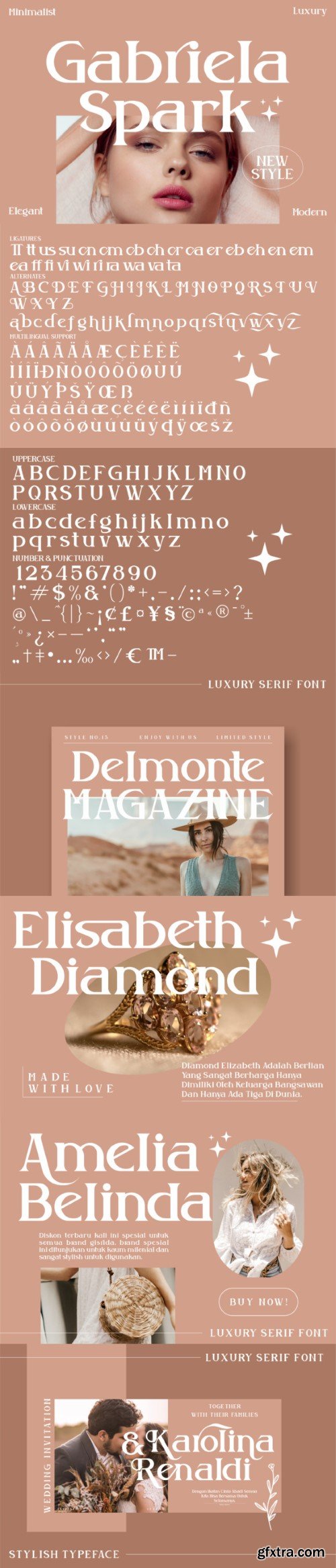
格布拉雅拉·斯帕克字体
Gabriela Spark is a bold and stylish serif font. This font is PUA encoded which means you can access all of the glyphs and swashes with ease!
Fall in love with its incredibly versatile style and use it to create spectacular designs!